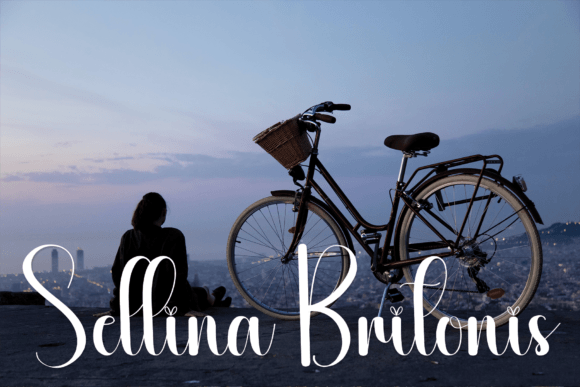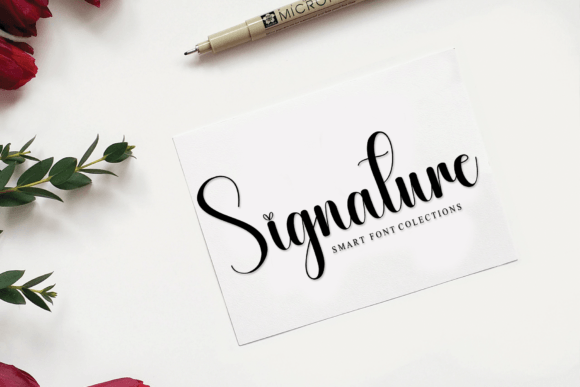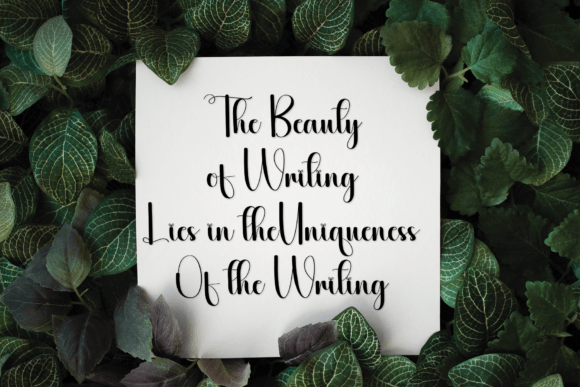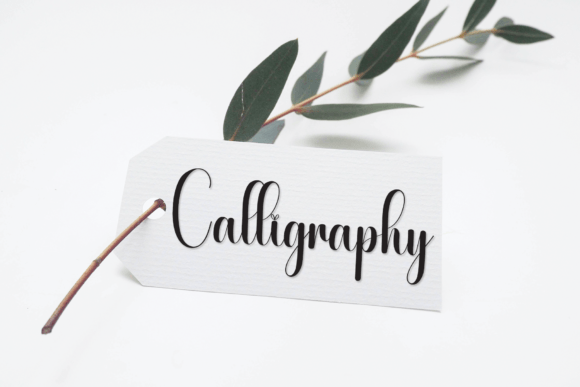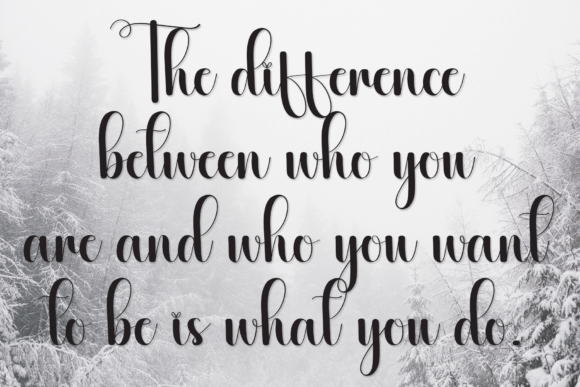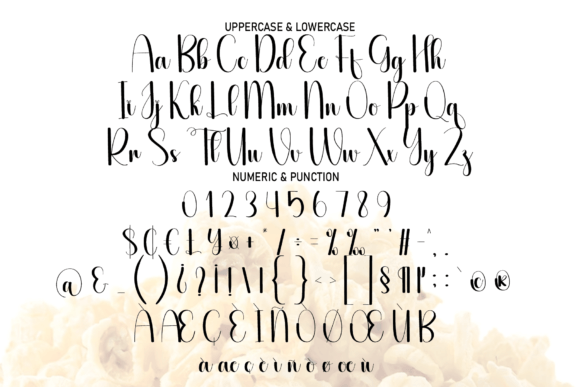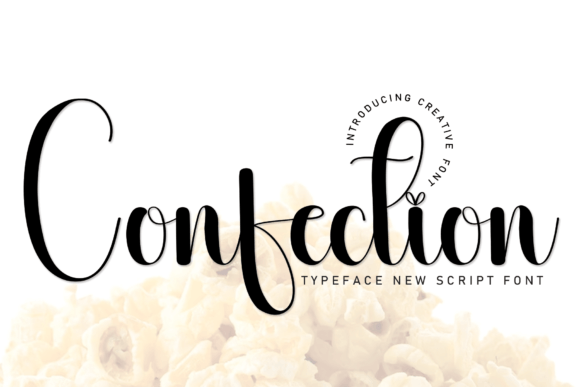
Introducing Confection Font: The Elegant and Timeless Choice for Your Design Projects
Are you on the hunt for a font that exudes elegance and sophistication? Look no further than Confection Font, a beautiful, flowing handwritten font that is sure to capture your heart. With its incredibly distinct and timeless style, Confection Font is the perfect choice for designers and crafters looking to add a touch of luxury to their projects.
The Characteristics of Confection Font
Confection Font is a handwritten font that boasts an elegant touch, making it ideal for a wide range of design applications. Its flowing lines and curves create a sense of movement and fluidity, giving your designs a dynamic and eye-catching feel. The font’s unique characteristics include:
- Elegant and Refined: Confection Font features a sophisticated and polished design that is sure to elevate your projects.
- Flowing Lines: The font’s flowing lines and curves create a sense of movement and fluidity, making it perfect for designs that require a touch of elegance.
- Timeless Style: Confection Font’s classic design ensures that it will remain a popular choice for years to come, making it a great investment for designers and crafters.
Why Choose Confection Font?
So, why should you choose Confection Font for your design projects? Here are just a few reasons:
- Versatility: Confection Font is perfect for a wide range of design applications, from wedding invitations and party decorations to branding and advertising materials.
- Easy to Read: Despite its elegant and refined design, Confection Font is easy to read, making it perfect for body text and headlines.
- Unique and Distinctive: Confection Font’s unique design ensures that your projects will stand out from the crowd, making it perfect for designers and crafters who want to create something truly special.
Using Confection Font in Your Design Projects
Confection Font is incredibly easy to use and can be incorporated into a wide range of design projects. Here are a few ideas to get you started:
- Wedding Invitations: Confection Font is perfect for wedding invitations, adding a touch of elegance and sophistication to your designs.
- Branding and Advertising: Use Confection Font to create eye-catching branding and advertising materials that are sure to grab attention.
- Party Decorations: Confection Font is perfect for party decorations, including banners, garlands, and other festive materials.
Tips for Getting the Most Out of Confection Font
Here are a few tips for getting the most out of Confection Font:
- Experiment with Different Sizes: Confection Font looks great in a variety of sizes, so don’t be afraid to experiment to find the perfect size for your project.
- Pair with Other Fonts: Confection Font pairs well with a range of other fonts, so try combining it with different fonts to create a unique and eye-catching design.
- Use it Sparingly: While Confection Font is perfect for headlines and titles, it can also be used sparingly in body text to add a touch of elegance and sophistication.
In conclusion, Confection Font is a beautiful, elegant, and timeless font that is perfect for designers and crafters looking to add a touch of luxury to their projects. With its flowing lines, refined design, and versatility, Confection Font is sure to become a favorite in your design toolkit. So why not give it a try and see the difference it can make in your designs?